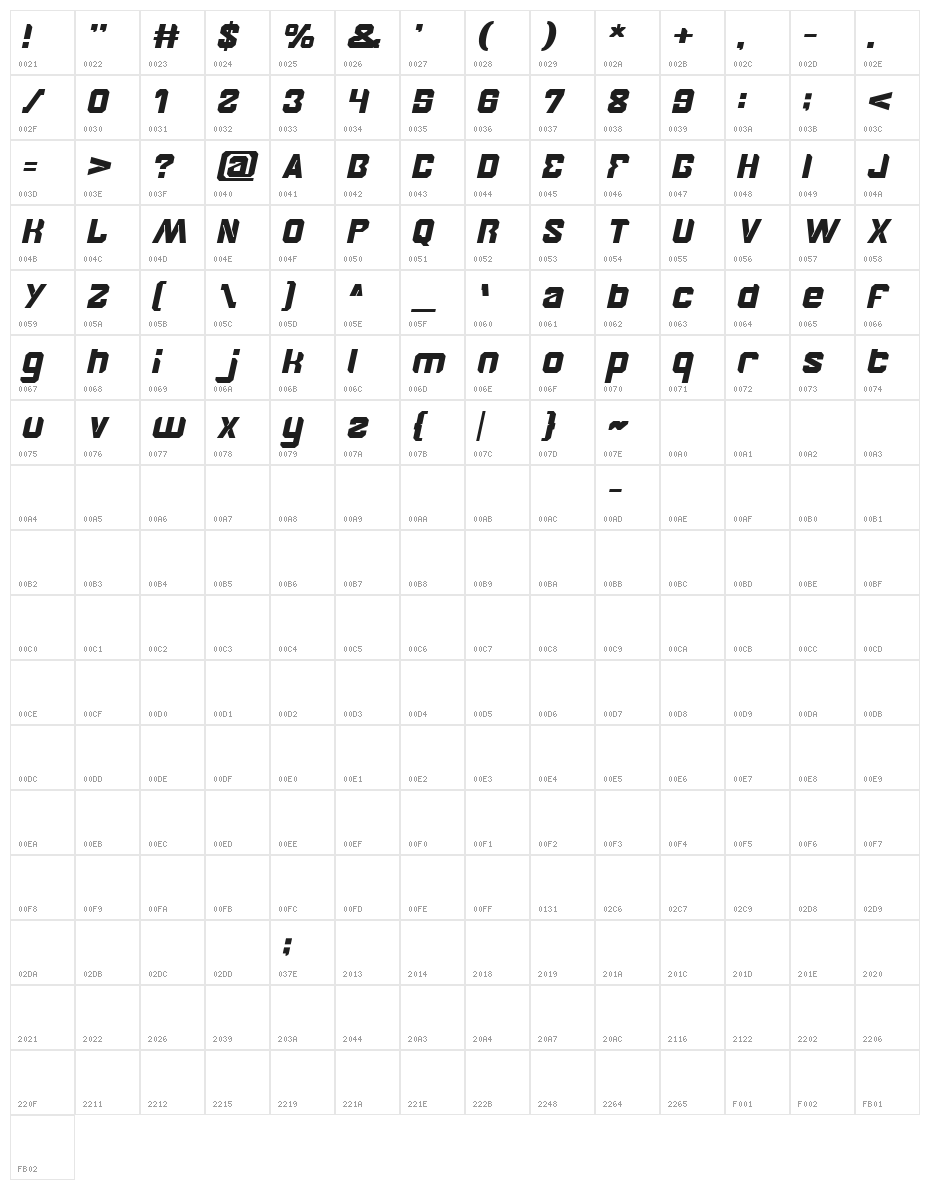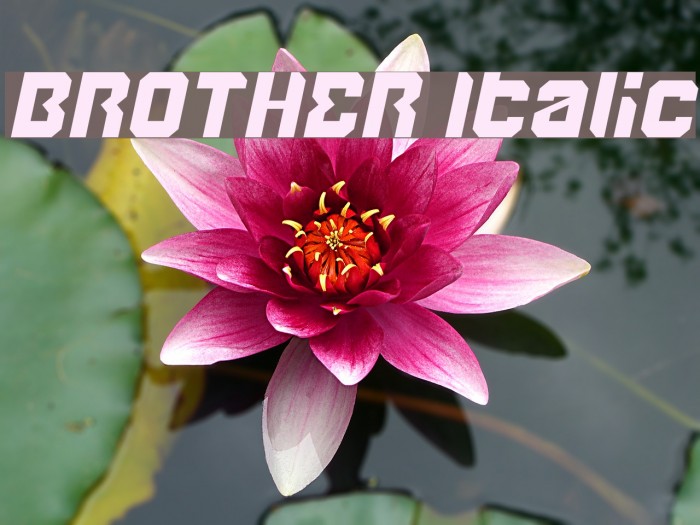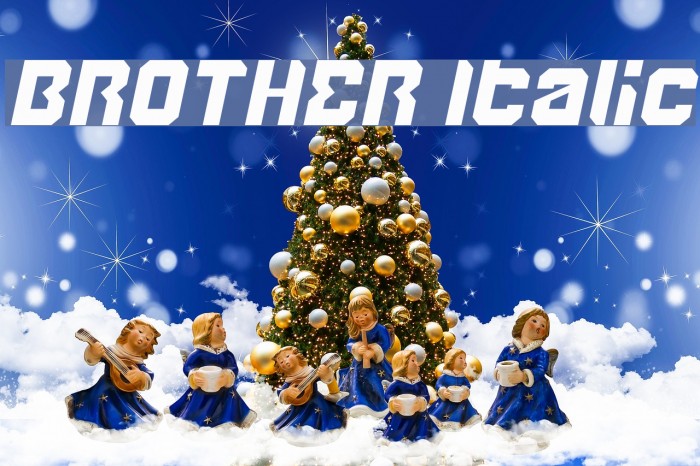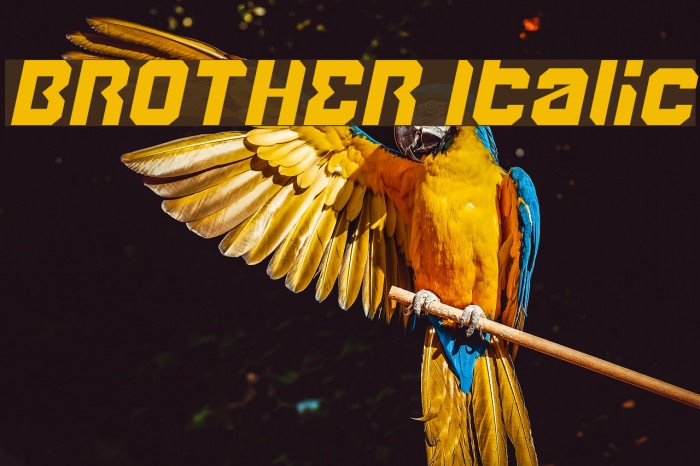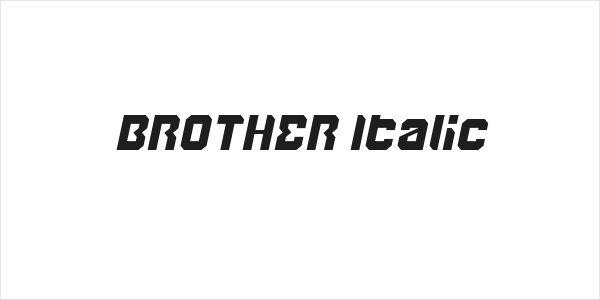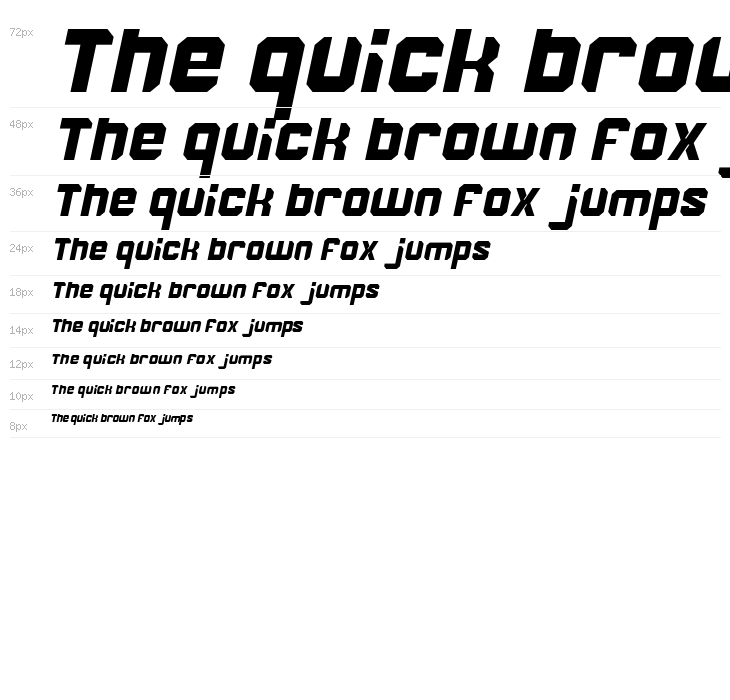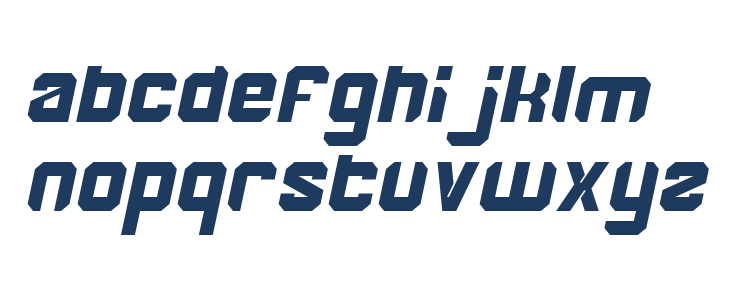
BROTHER Italic Font
BROTHER Italic Description
This font features a bold, italicized style with a strong geometric structure. The characters are angular and dynamic, giving a sense of movement and energy. The uppercase and lowercase letters maintain a consistent slant, enhancing the italic effect. The numbers and special characters follow the same bold and angular design, ensuring uniformity across all glyphs. The font's thick strokes and sharp edges make it highly legible, even at smaller sizes, while its unique style adds a modern and edgy touch to any text.
| Proposed Projects | Ideal for sports branding, dynamic posters, modern logos, and edgy headlines. |